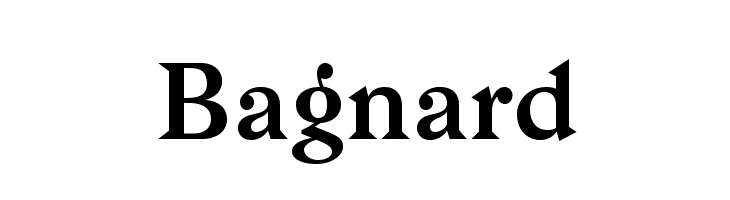
A bold, rounded font with a playful yet structured appearance.
A dot matrix style font with a modern, digital aesthetic.
A bold, dot-based font with a digital, pixelated style.
A bold, decorative font with musical notes integrated into each letter.
A vintage, hand-drawn font with bold, irregular strokes and a rustic charm.
A classic, calligraphic font with fluid, artistic strokes.
A playful, casual handwritten font with rounded, smooth letterforms.
A bold, high-contrast serif font with dramatic and elegant features.
A bold, high-contrast font with a dynamic and impactful style.
A bold, vintage-inspired font with a modern twist, perfect for impactful designs.
A playful, handwritten font with bold, rounded strokes and a casual vibe.
A bold, brush-style font with a hand-drawn, dynamic appearance.
A bold, geometric font with a modern and minimalist aesthetic.
A modern, geometric font with clean lines and a structured design.
A bold, futuristic font with geometric and angular design elements.
A bold, geometric font with Art Deco influences, featuring tall, narrow characters.
A bold, geometric font with Art Deco influences, perfect for striking headlines.
A bold, geometric font with Art Deco influences, ideal for striking headlines.
A playful, irregular font with a hand-drawn, artistic style.
A bold, futuristic font with geometric and dynamic design elements.
A modern font with geometric letterforms and a subtle artistic flair.